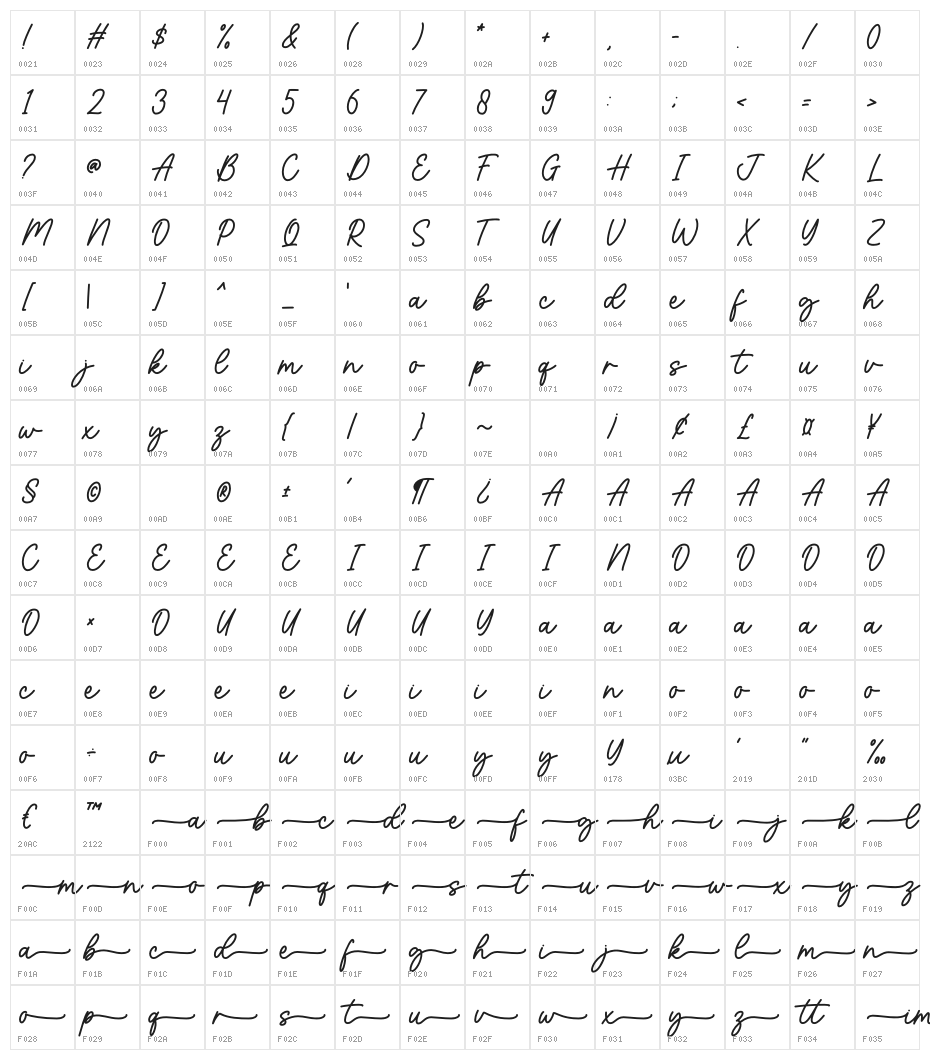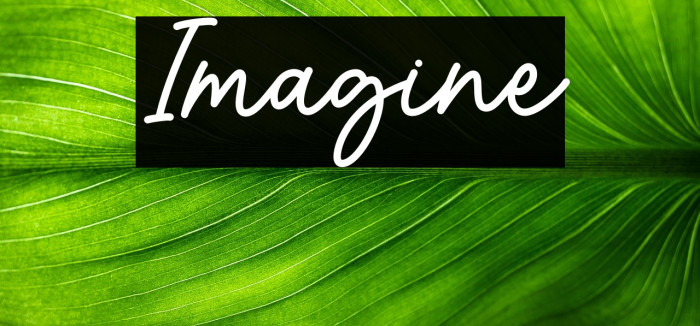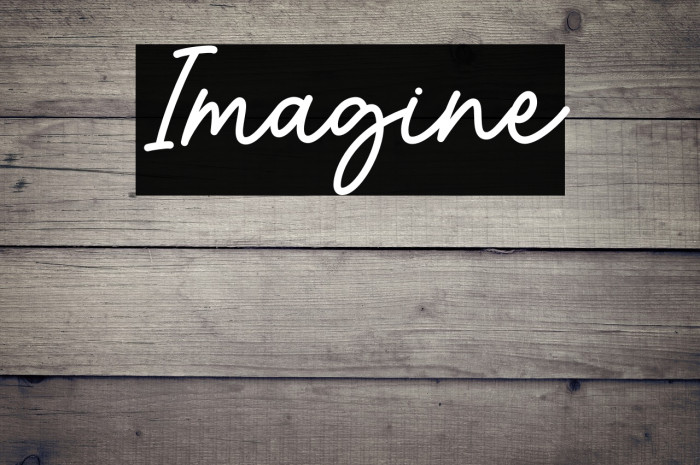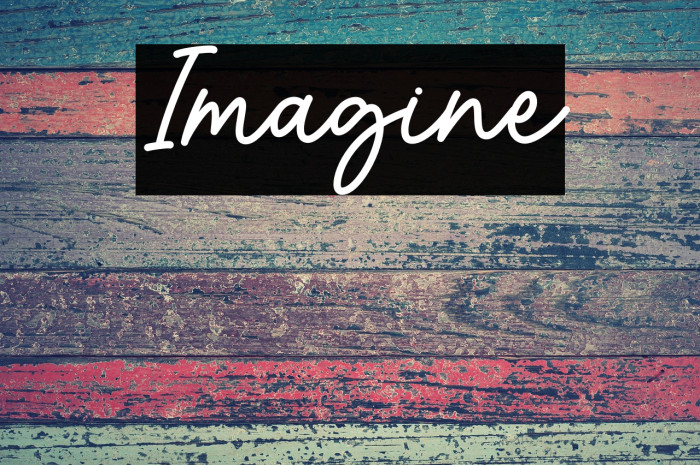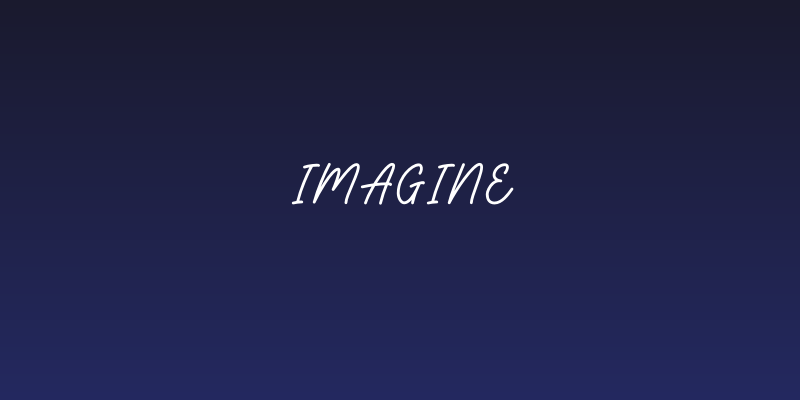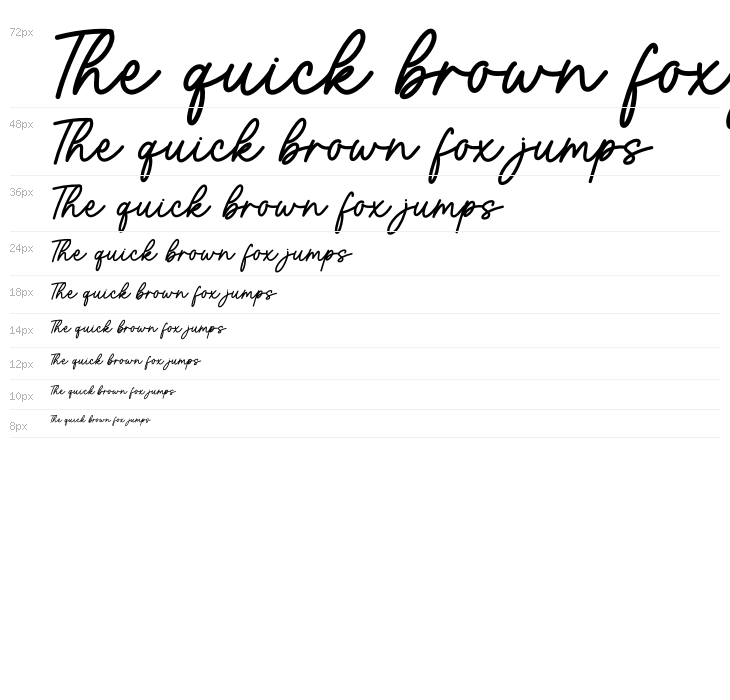
Imagine Font
Imagine Description
This font exudes a casual and flowing handwritten style, characterized by its smooth, cursive letterforms. Each character is elegantly connected, creating a seamless and fluid appearance. The uppercase letters maintain a consistent height, while the lowercase letters exhibit a slight slant, enhancing the font's dynamic and lively feel. The numerals are clear and legible, complementing the overall aesthetic. Special characters are thoughtfully designed, maintaining the font's cohesive look. This font is perfect for projects that require a personal touch, such as invitations, greeting cards, or branding materials.
| Overall Style | Casual, Elegant |
| Use Case | Headlines, Logos, Personal projects |
| Proposed Projects | Ideal for invitations, greeting cards, personal branding, and creative projects. |